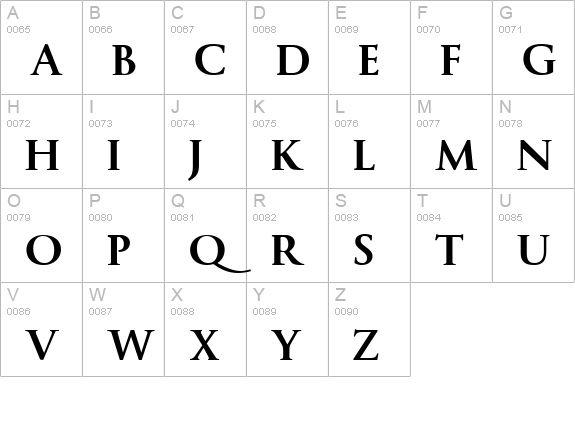
Byington-Bold Font Details
Byington-Bold is a strong, high-contrast variant in the Byington typeface family \xE2\x80\x94 well suited to headlines, attention-grabbing titles, and strong calls-to-action.
Byington-Bold is a modern and versatile font that exudes a sense of strength and sophistication. With its bold and clean lines, this typeface commands attention and makes a statement. Perfect for headlines, titles, or any design project that requires a strong and impactful aesthetic. What makes Byington-Bold even more appealing is that it is completely free to download at FontsMarket.com. So whether you're a designer looking to add a powerful touch to your work or a content creator in need of a standout font, Byington-Bold is the perfect choice. Download it today and elevate your design projects to the next level.